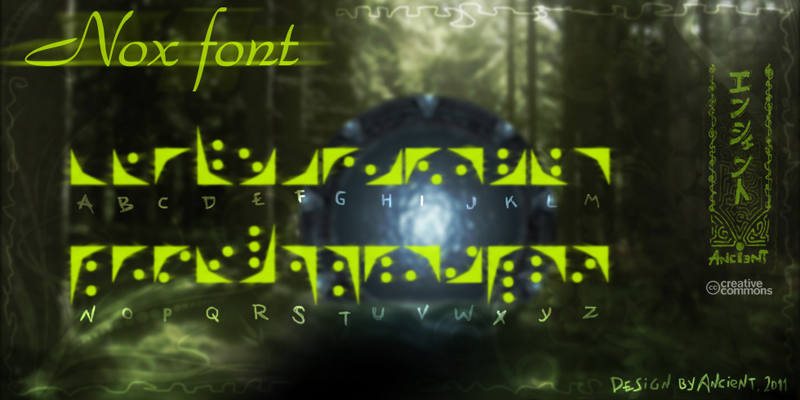
Font name: | Nox |
Author: | Nick Polyarush |
Note by Nick Polyarush | |
This is the Nox font as it appeared in Stargate SG-1 on Heliopolis (Season 1, Episode 10). |